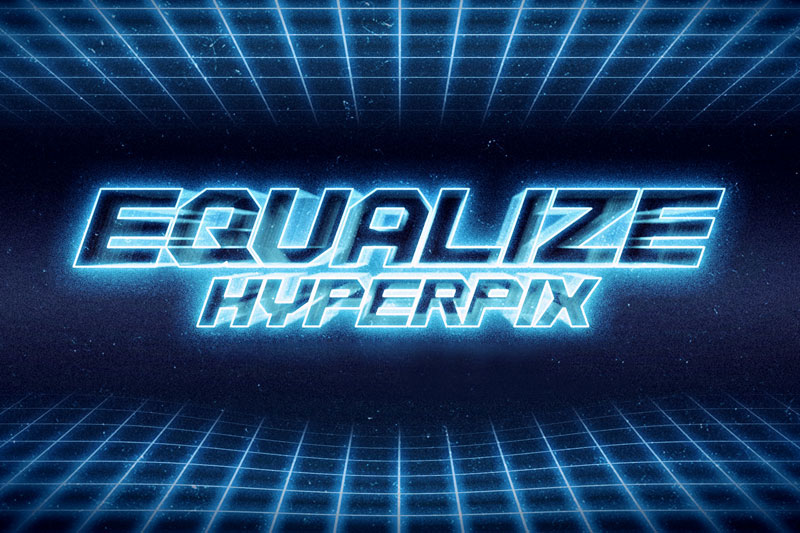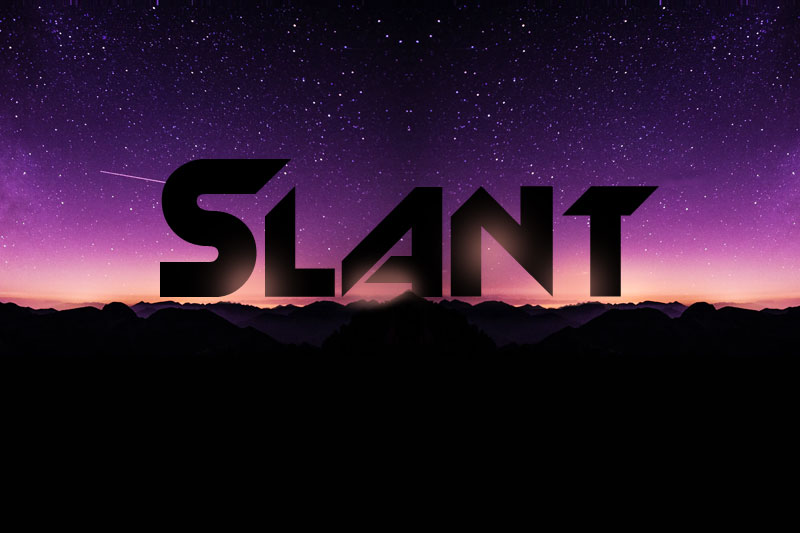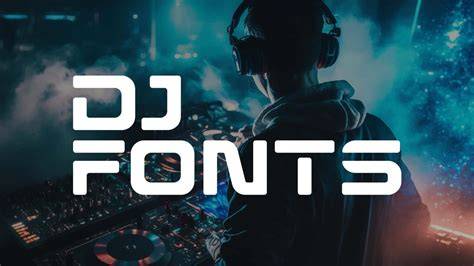
Everything You Need To Know About Dj Fonts In 2023
Introduction to DJ Fonts
DJ fonts are a unique type of font that has been gaining popularity in the world of DJs, producers, and music makers. This type of font is designed to make it easier for DJs to create custom logos and artwork for their sets, mixes, and albums. While it is true that many DJs use the same type of fonts for their artwork, there are still many unique and interesting options out there for producers to choose from. In this article, we will be taking a look at the different types of DJ fonts available, as well as what makes them different from other types of fonts.
Types of DJ Fonts
One of the most popular types of DJ fonts is the script font. This type of font is designed to be bold and eye-catching. Script fonts are often used to create bold logos and titles for albums and sets. They are also commonly used in logos and branding for DJs and producers. Script fonts are perfect for making a statement and are often used by DJs to show off their style and identity.
Another popular type of DJ font is the sans serif font. This type of font is designed to be clean and modern looking. Sans serif fonts are often used in branding and logos for DJs and music makers. They are also commonly used in logos and titles for albums and sets. Sans serif fonts are perfect for creating a professional and modern look.
The last type of DJ font is the decorative font. Decorative fonts are designed to be unique and eye-catching. They are often used for logos and titles for albums and sets. Decorative fonts are perfect for creating a unique and stylish look for DJs and producers.
What Makes DJ Fonts Different?
DJ fonts are different from other types of fonts in a few key ways. First, DJ fonts are designed to be bold and eye-catching. This makes them perfect for creating logos and titles for albums and sets. They are also often used in branding and logos for DJs and producers. Secondly, DJ fonts are often designed to be unique and stylish. This makes them perfect for creating a unique and stylish look for DJs and producers. Finally, DJ fonts are often designed to be modern and clean looking. This makes them perfect for creating a professional and modern look.
DJ fonts are a unique and stylish type of font that has been gaining popularity in the world of DJs, producers, and music makers. They are perfect for creating logos, titles, and branding for albums and sets. They are also great for creating a unique and stylish look for DJs and producers. With the wide variety of DJ fonts available, there is sure to be something for everyone in the world of music.